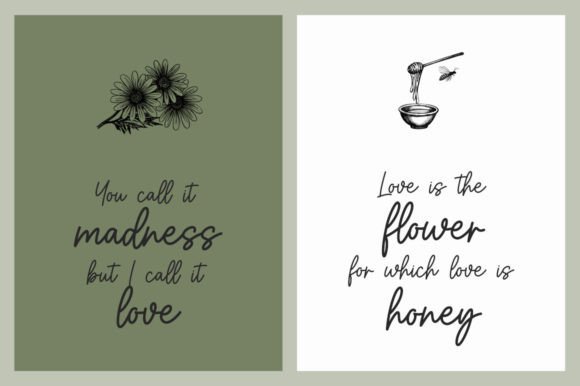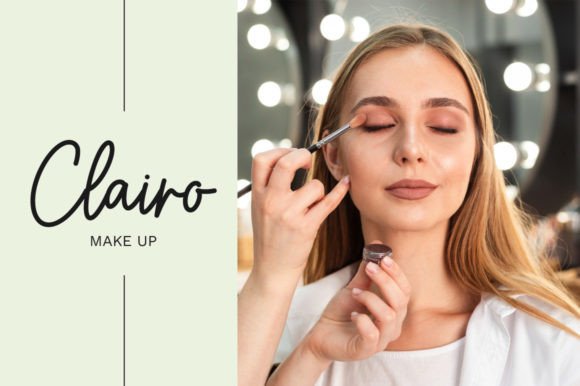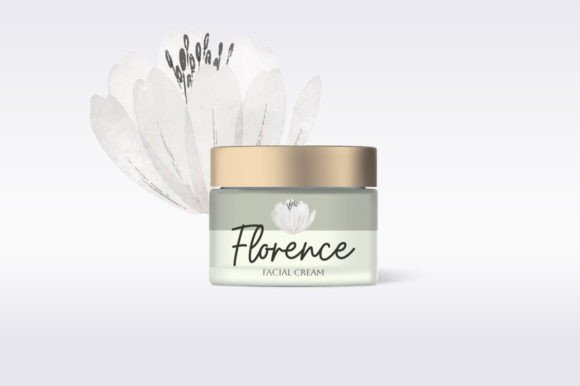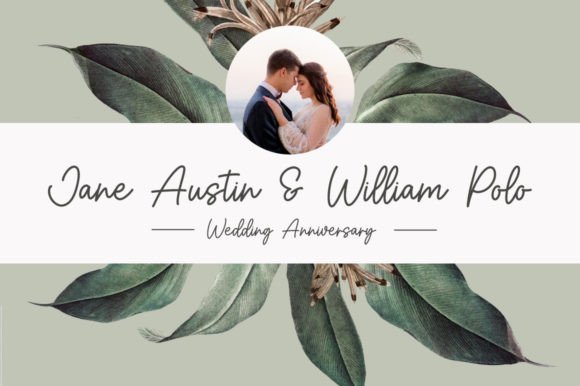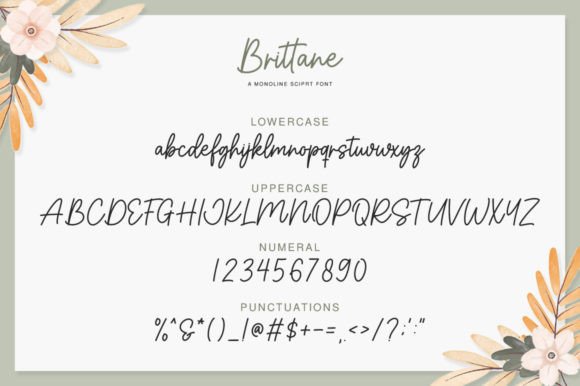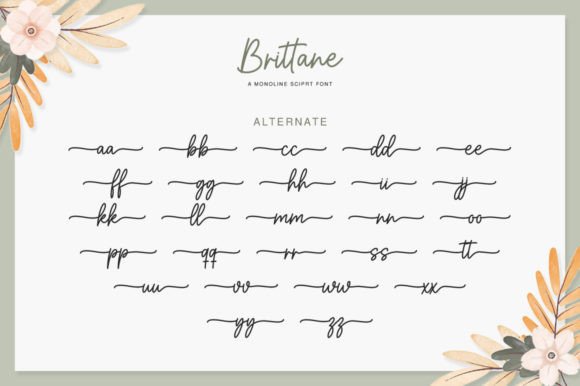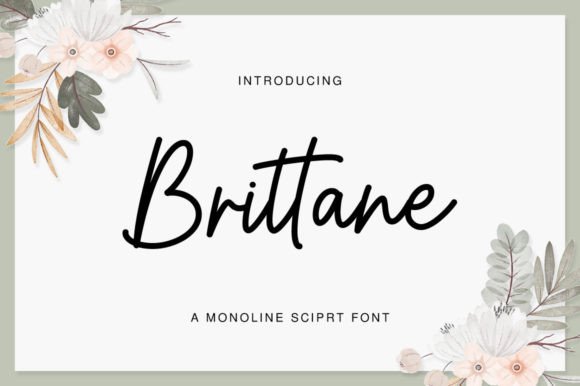
The Brittane Font: A Timeless Handwritten Treasure
I’ll never forget the design project that led me to discover the Brittane font. I was working on a branding campaign for a new coffee shop, and I needed a font that would capture the warm, cozy atmosphere of their store. I spent hours scouring font websites, but nothing seemed quite right. That was until I stumbled upon Brittane – a lovely and timeless handwritten font that instantly won me over.
So, what makes Brittane so special? Here are a few things I love about this font:
- ✨ Beautifully crafted letters: Each letter in Brittane is carefully designed to be elegant and easy to read.
- ✅ Perfect for logos and branding: Brittane’s unique character makes it an excellent choice for creating eye-catching logos and branding materials.
- ✅ Great for quotes and phrases: The font’s flowing script style makes it ideal for highlighting quotes and phrases.
Of course, no font is perfect, and Brittane does have a few small quirks:
- 🤔 Limited use in very small sizes: While Brittane is generally clear and readable, it can get a bit fuzzy when used in very small sizes.
- ⚠️ Some swashes may not work well with all glyphs: As with any font, some combinations of swashes and glyphs might not look perfect, so a little experimentation is required.
The Story Behind Brittane
Brittane was designed with love and care by a talented type designer who wanted to create a font that would evoke a sense of warmth and personality. The designer drew inspiration from classic handwritten scripts and infused them with modern flair, resulting in a font that’s both timeless and trendy.
| Is Brittane suitable for body text? | While Brittane is beautiful, it’s best used for headings and short paragraphs. For longer body text, a clearer font might be more suitable. |
Brittane is a versatile and beautiful font that can elevate any design project. Whether you’re a designer, crafter, or hobbyist, this lovely handwritten font is sure to inspire your creativity.